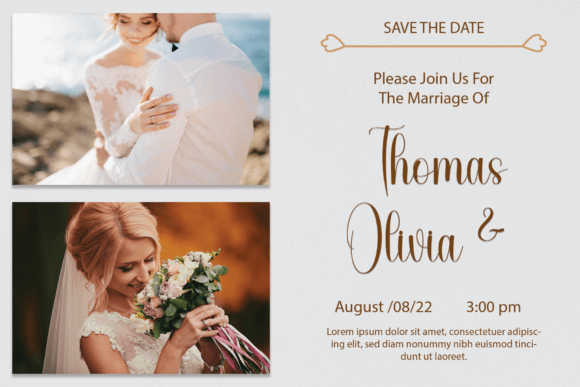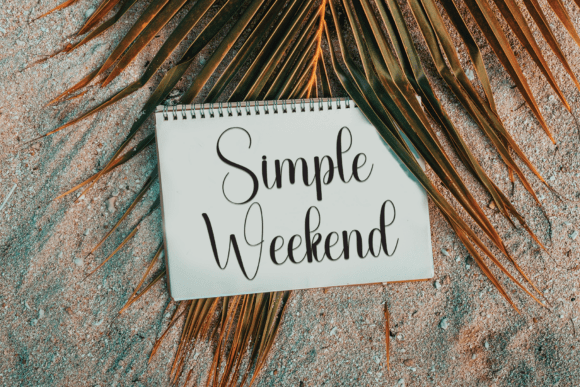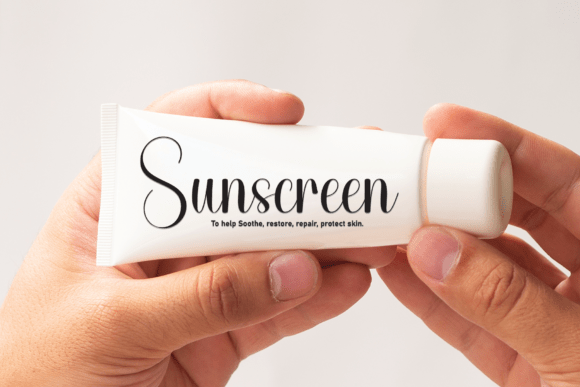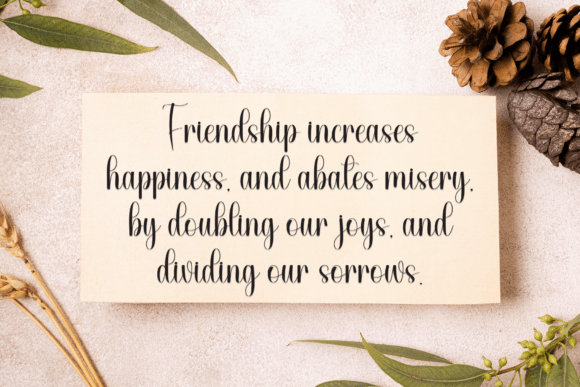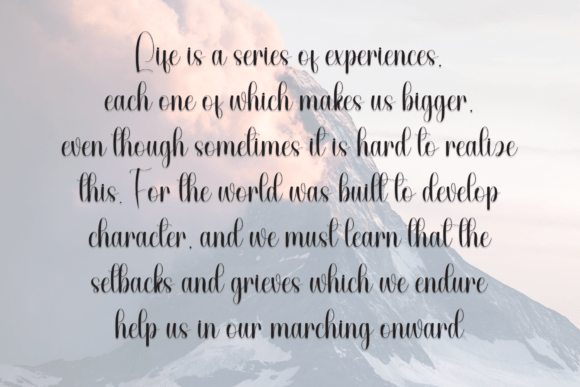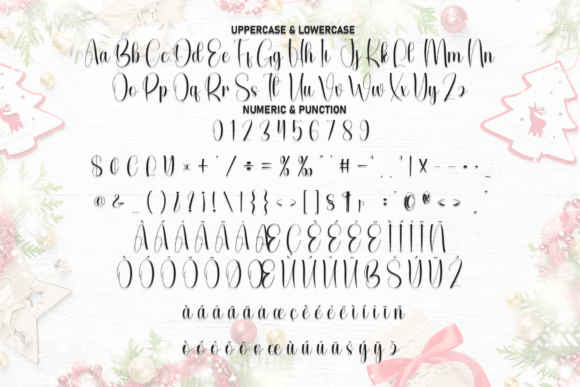
Introducing the Background Christmas Font: Elevate Your Designs with Elegance and Whimsy
Are you searching for a font that embodies the perfect blend of sophistication and playfulness? Look no further than our Background Christmas Font, a distinctively shaped typeface designed to add a touch of magic to your designs. With its exemplary marriage of refined grace and lively elements, this display font is sure to arrest your attention and captivate your audience.
A Font that Exudes Elegance and Charisma
Our Background Christmas Font is carefully crafted to bring a sense of elegance and charisma to your designs. Each character is detailed to perfection, radiating sophistication and promising to imbue your creations with an alluring charm. Whether you’re working on wedding invitations, holiday cards, or any design endeavor requiring a captivating touch, this font is the perfect choice.
Ideal for Wedding Invitations and Design Endeavors
Our font is particularly well-suited for wedding invitations, where a touch of elegance and whimsy can make all the difference. The Background Christmas Font adds a magical aura to your designs, setting the tone for a joyous and memorable celebration. Additionally, this versatile font can be used for various design endeavors, such as holiday cards, party invitations, and more.
Key Features of the Background Christmas Font
- Exemplary marriage of refined grace and playful elements: Our font combines the perfect balance of sophistication and whimsy, making it ideal for a wide range of design applications.
- Detailed characters: Each character is carefully crafted to radiate sophistication and add an alluring charm to your designs.
- Magical aura: Our font adds a touch of magic to your designs, perfect for wedding invitations, holiday cards, and other celebratory projects.
- Versatile: The Background Christmas Font can be used for various design endeavors, from digital projects to print materials.
Uplift Your Creative Endeavors with Our Font
Our Background Christmas Font is intentionally structured to inject a lively vibrancy and harmonious sweetness into your designs. With its striking strokes and captivating charm, this font promises to elevate your creative endeavors and set your designs apart. Whether you’re a designer, crafter, or DIY enthusiast, our font is the perfect tool to add a touch of elegance and whimsy to your projects.
Tips for Using the Background Christmas Font
- Experiment with font sizes: Our font looks stunning in various sizes, from large headings to smaller text.
- Pair with complementary fonts: Combine our font with other complementary fonts to create a unique and visually appealing design.
- Use for headlines and titles: The Background Christmas Font is perfect for headlines and titles, adding a touch of elegance and whimsy to your designs.
- Add a personal touch: Use our font to add a personal touch to your designs, making them more special and memorable.
In conclusion, our Background Christmas Font is a unique and captivating typeface that promises to elevate your designs with elegance and whimsy. With its exemplary marriage of refined grace and playful elements, this font is ideal for a wide range of design applications, from wedding invitations to holiday cards and more. Uplift your creative endeavors with our font, and add a touch of magic to your designs.